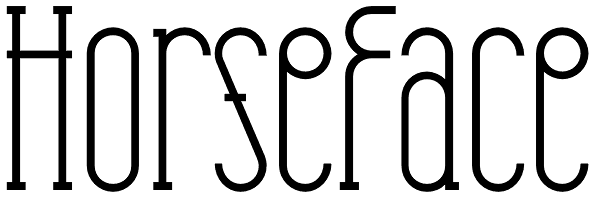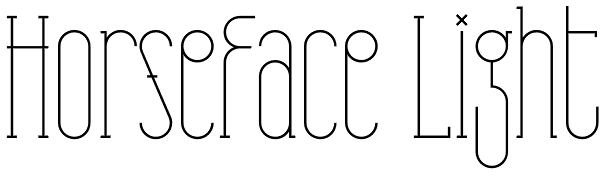
HorseFace
Horseface is a chic geometric typeface with Didonian roots and a penchant for high fashion. Its mono-linear, formulaic structure is elongated with a generous x-height giving it an upmarket but approachable look, traditional forms remixed with a...